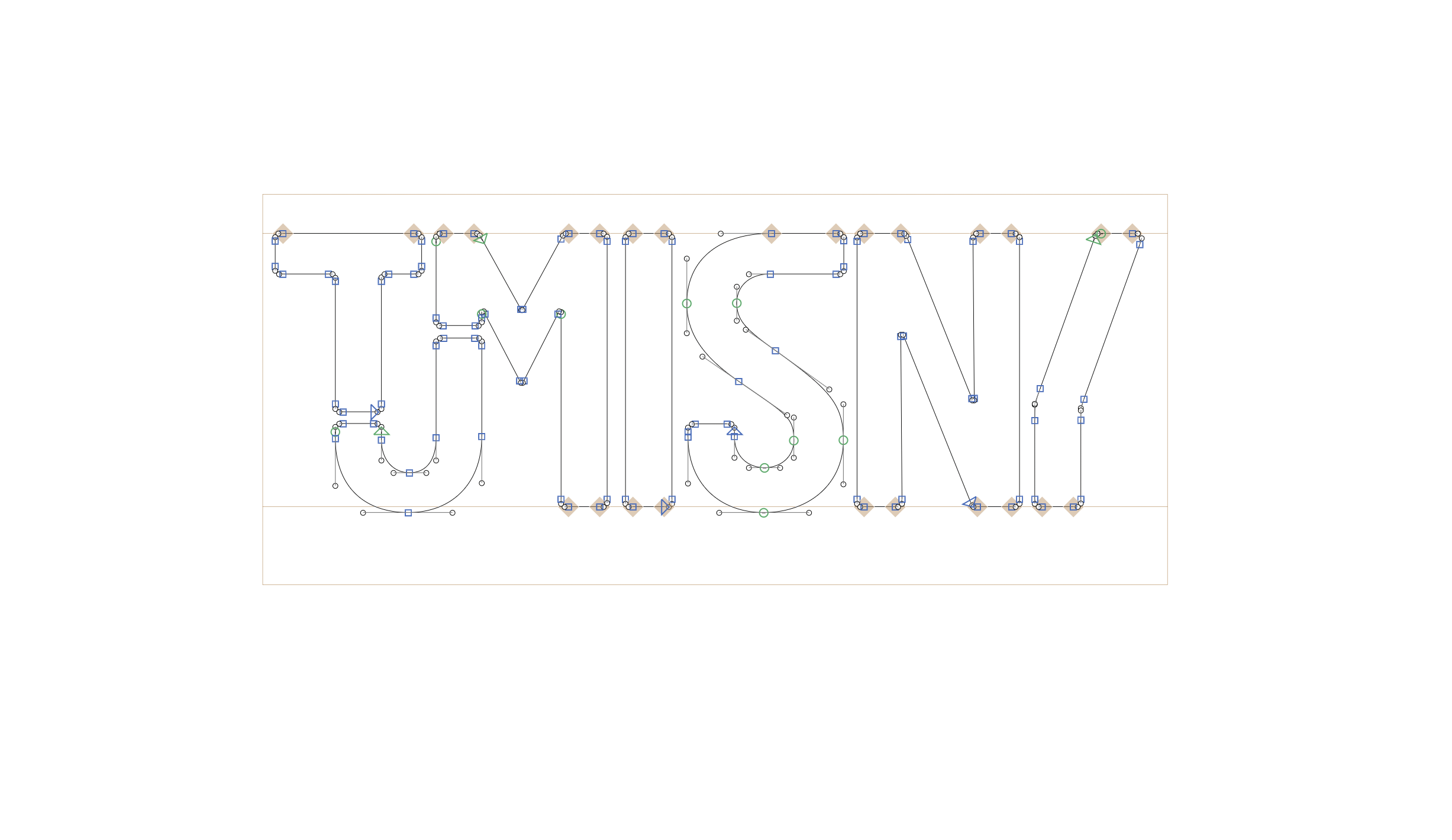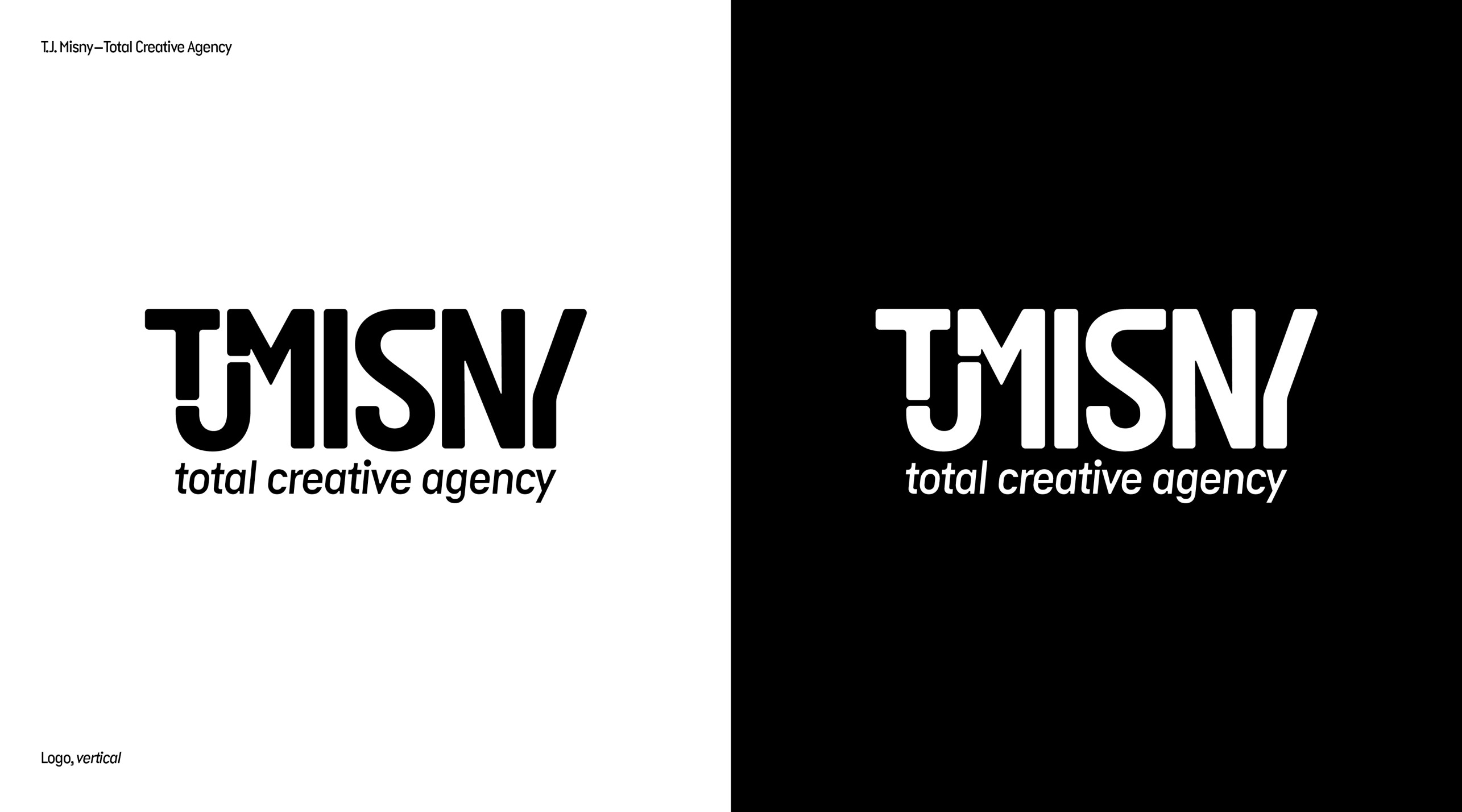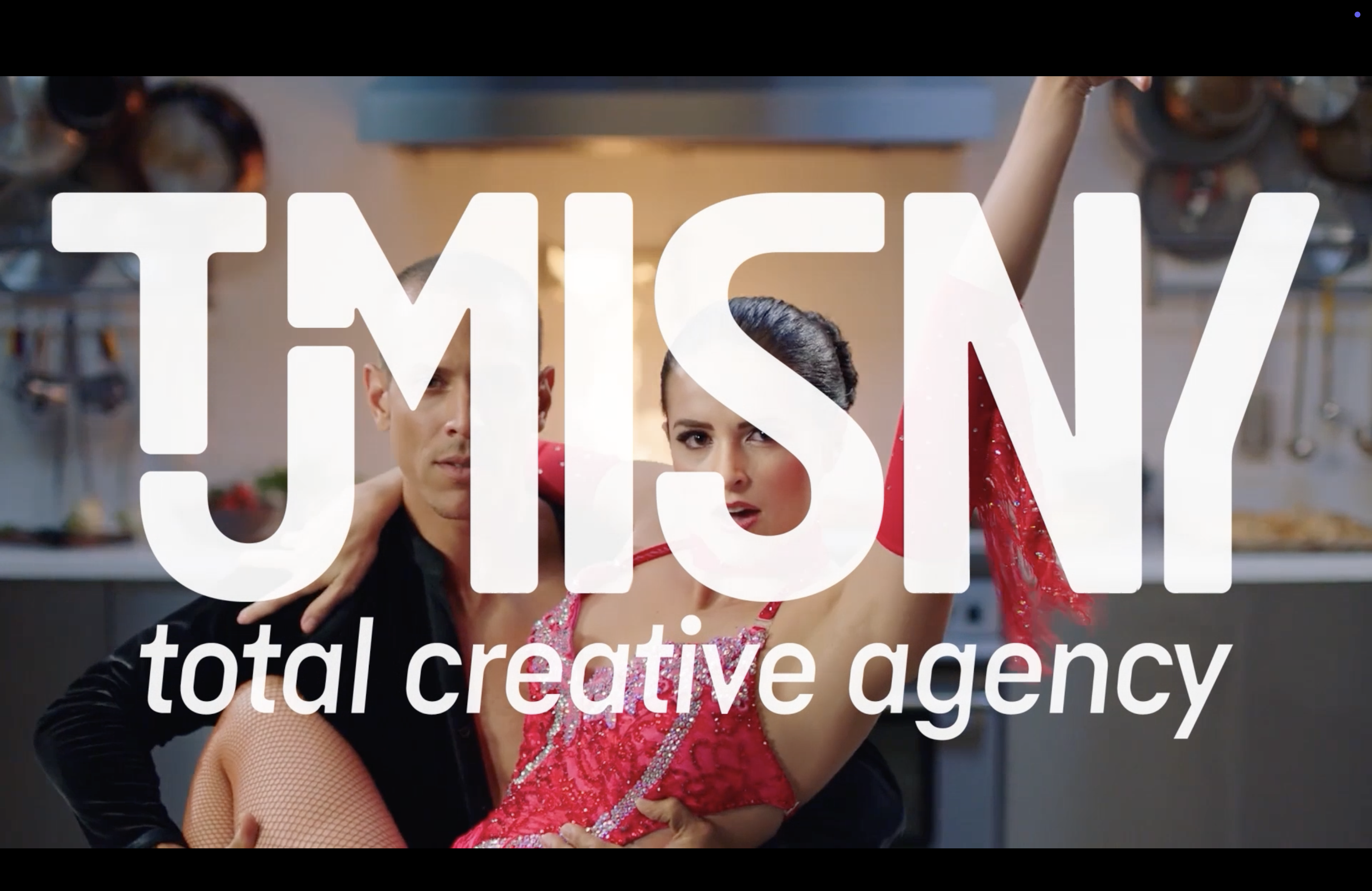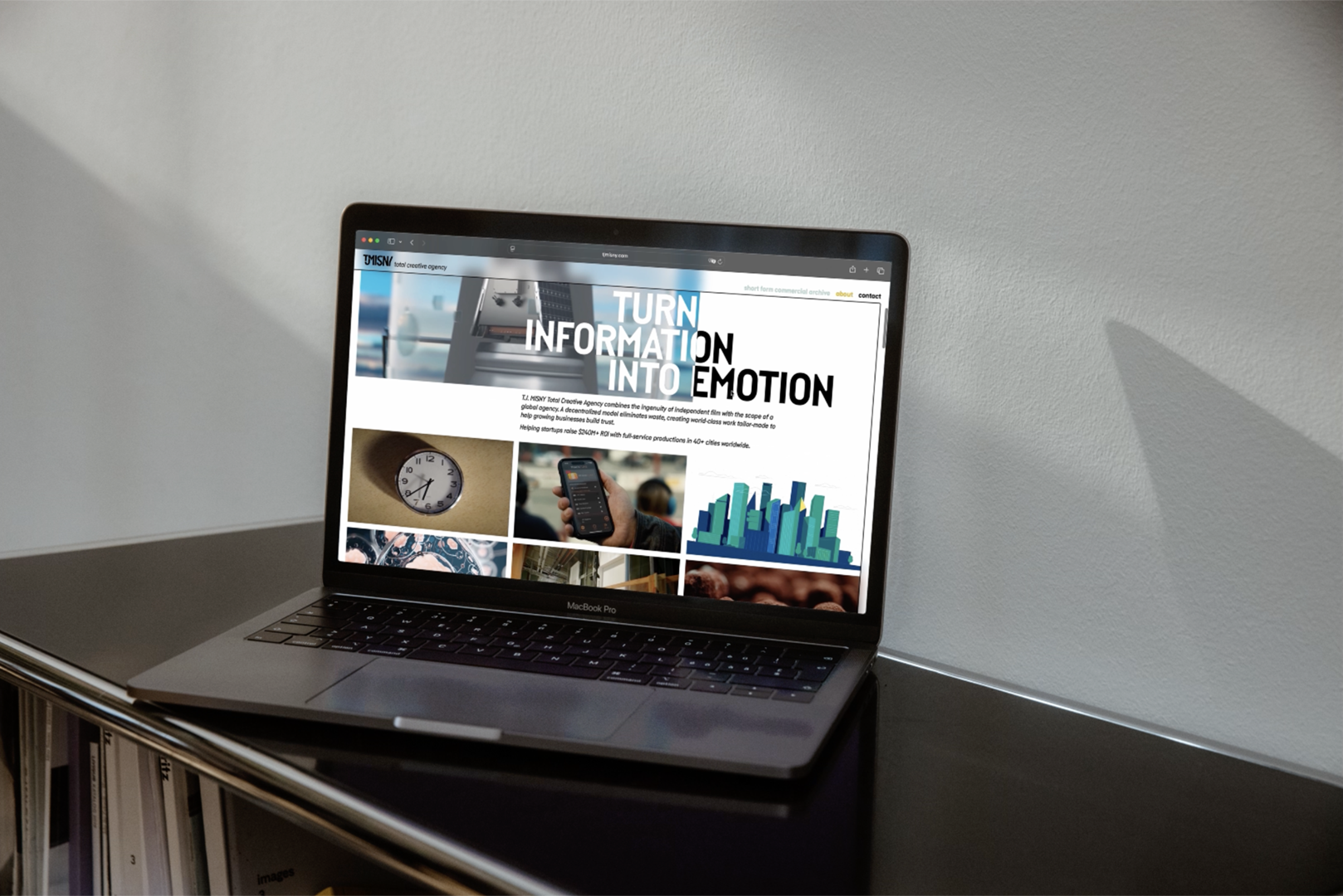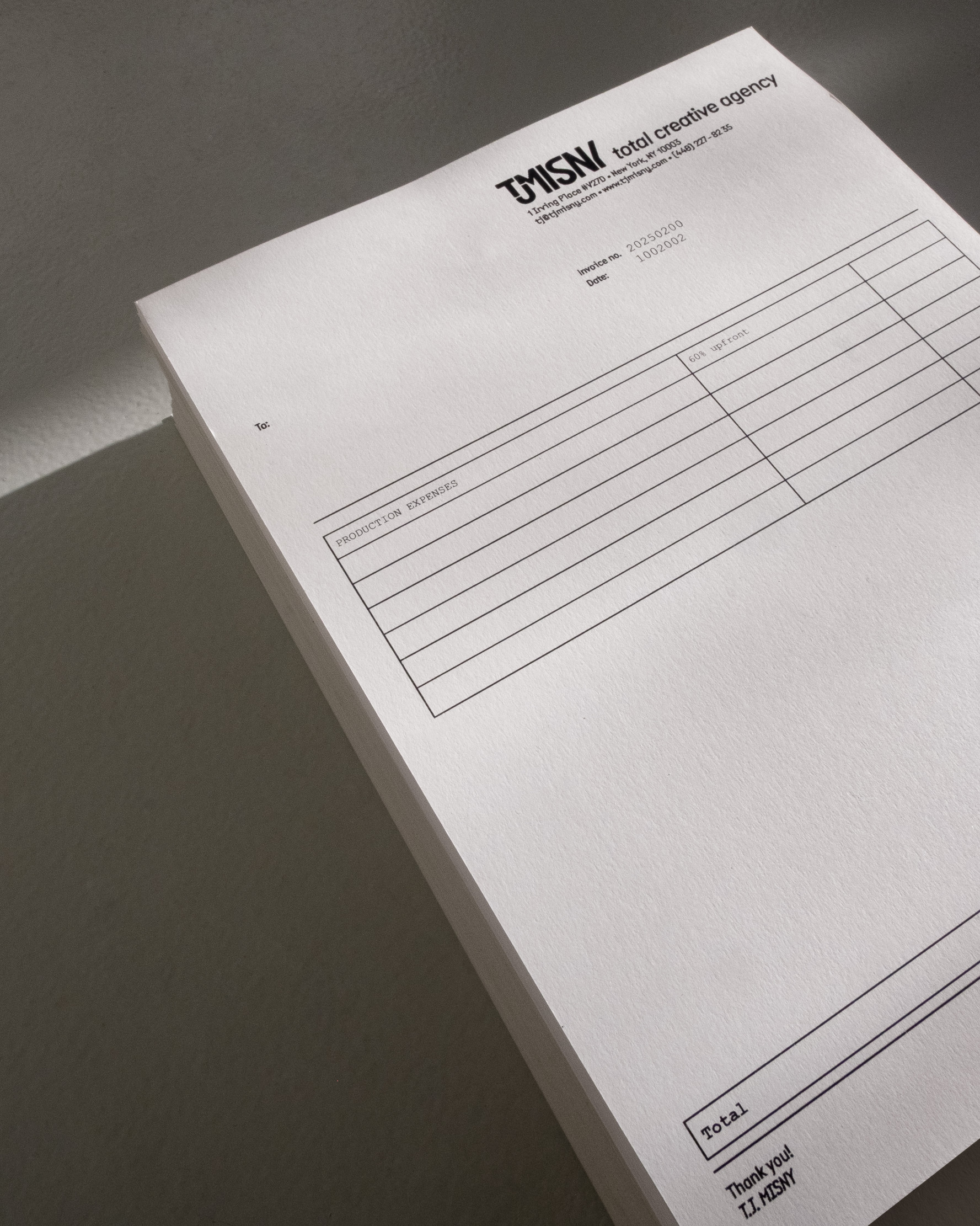
T.J. MISNY Total Creative Agency
T.J. MISNY Total Creative Agency is combines global agency-level broadcast commercial production/marketing and independent film.
The logo illustrates the flow and emotion in each of T.J. Misny’s projects combining the letters of his name in a continuous wave. This flow is also represented on his website. It allows the visitor to experience as much of his work in a condensed space to understand the full extent of his broad expertise. The colour design represents the unique character of his work and brightens the identity.
Typeface: Piet Sans TypeMates